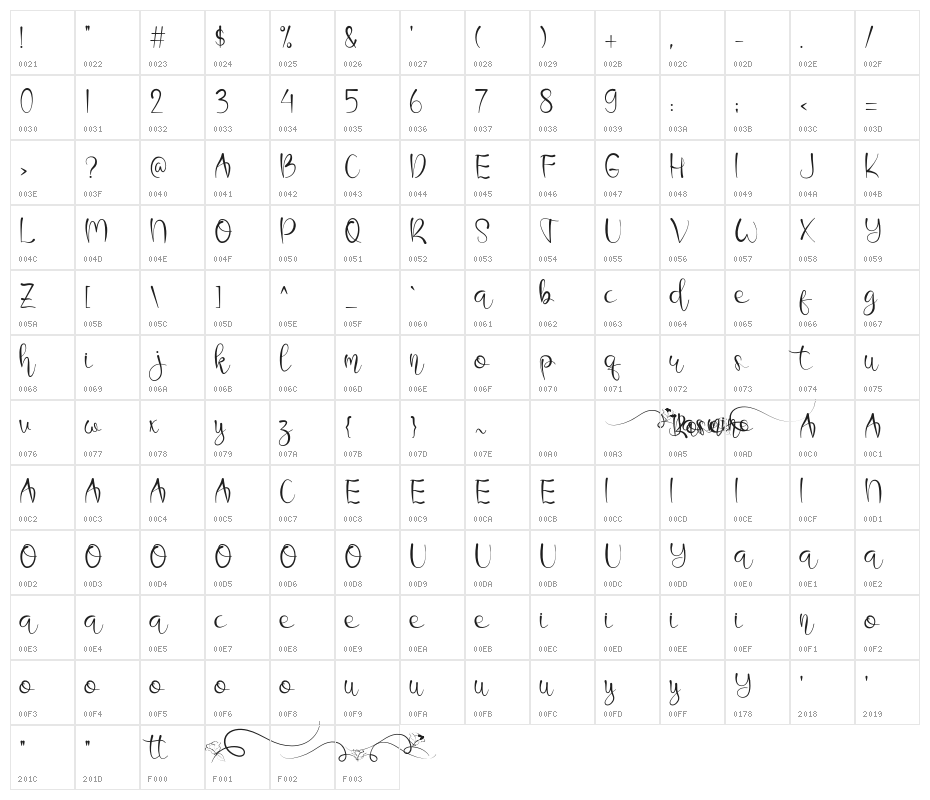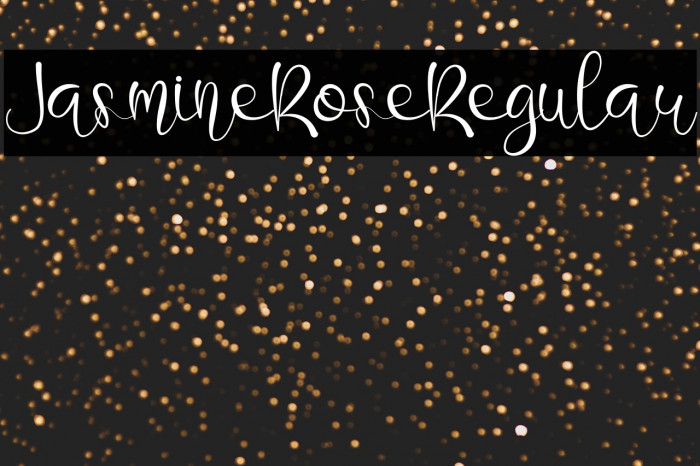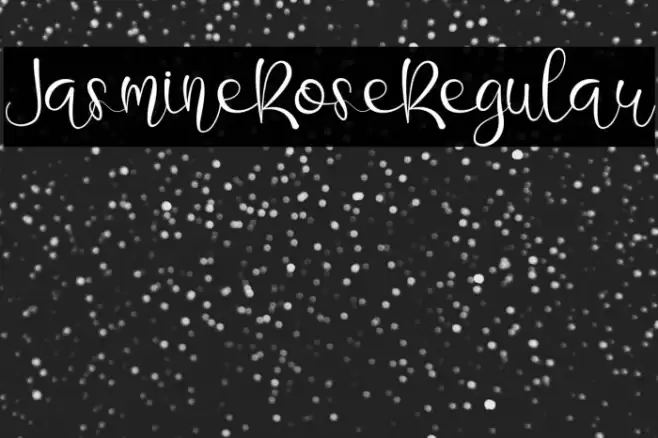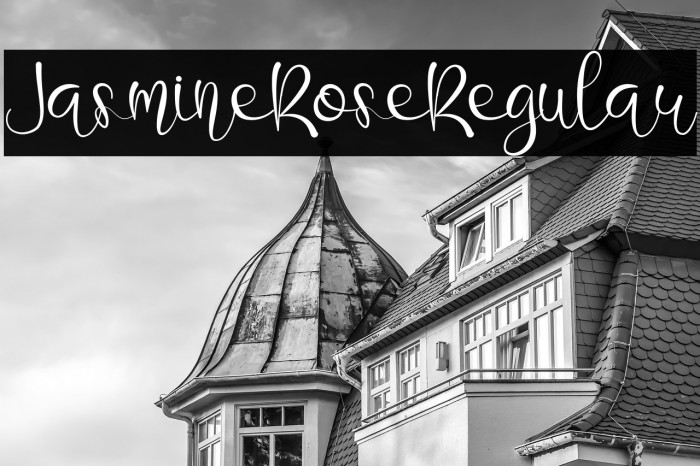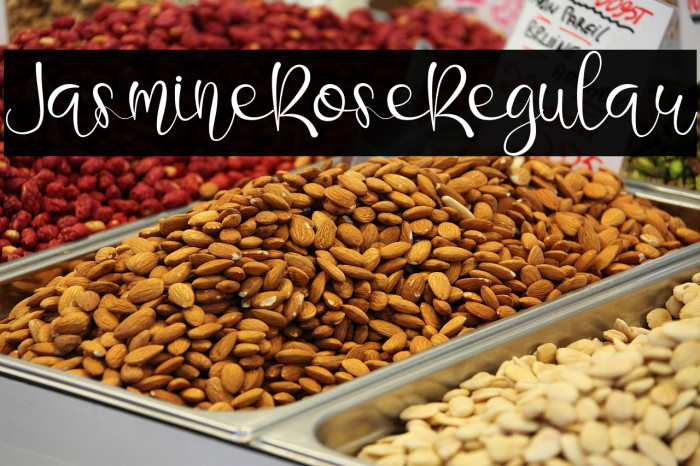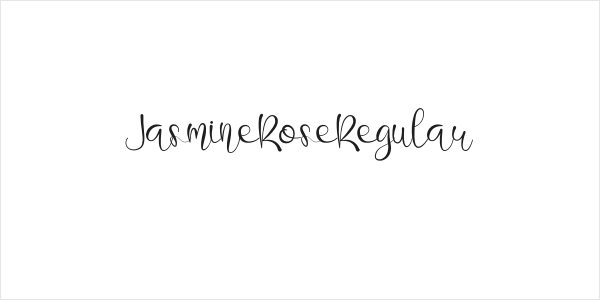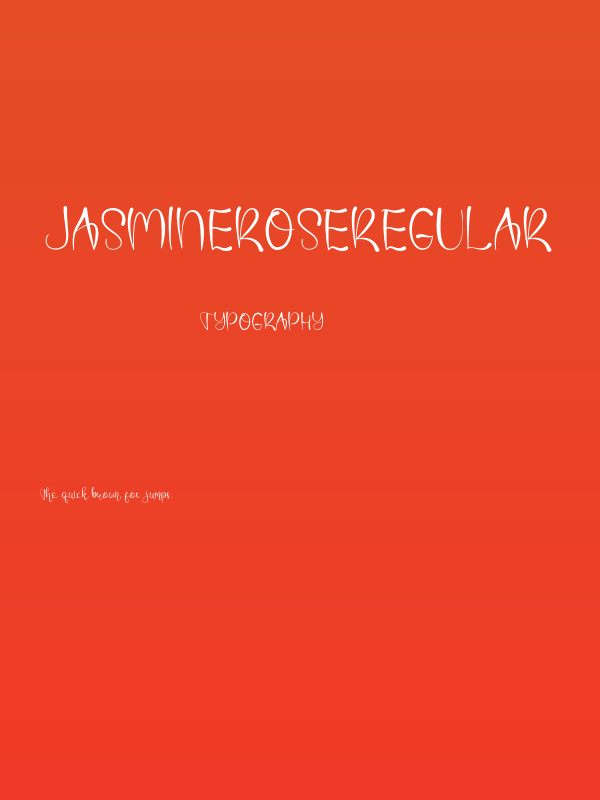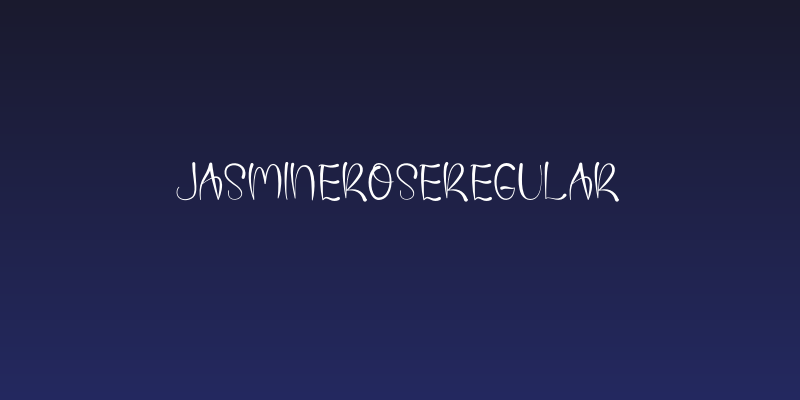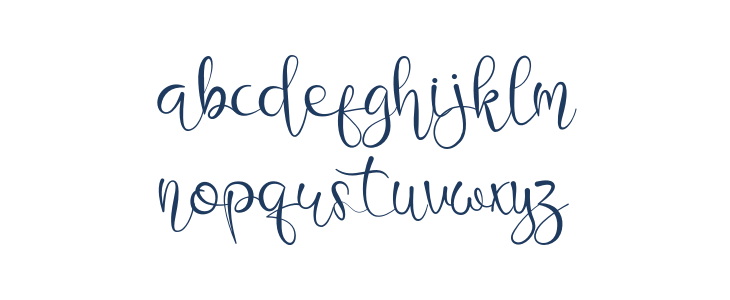
JasmineRoseRegular Font
JasmineRoseRegular Description
This font features a whimsical and flowing script style, characterized by its elegant and fluid letterforms. The uppercase letters are tall and slender with graceful curves, while the lowercase letters maintain a consistent flow with loops and swashes that add a playful touch. The numbers are distinct and maintain the same flowing style, making them easily readable. Special characters are creatively designed, adding to the overall charm. This font exudes a sense of elegance and creativity, making it suitable for artistic and decorative purposes.
Use CaseLogos, Invitations, Decorative Text
Proposed ProjectsIdeal for wedding invitations, greeting cards, branding projects, and artistic posters.